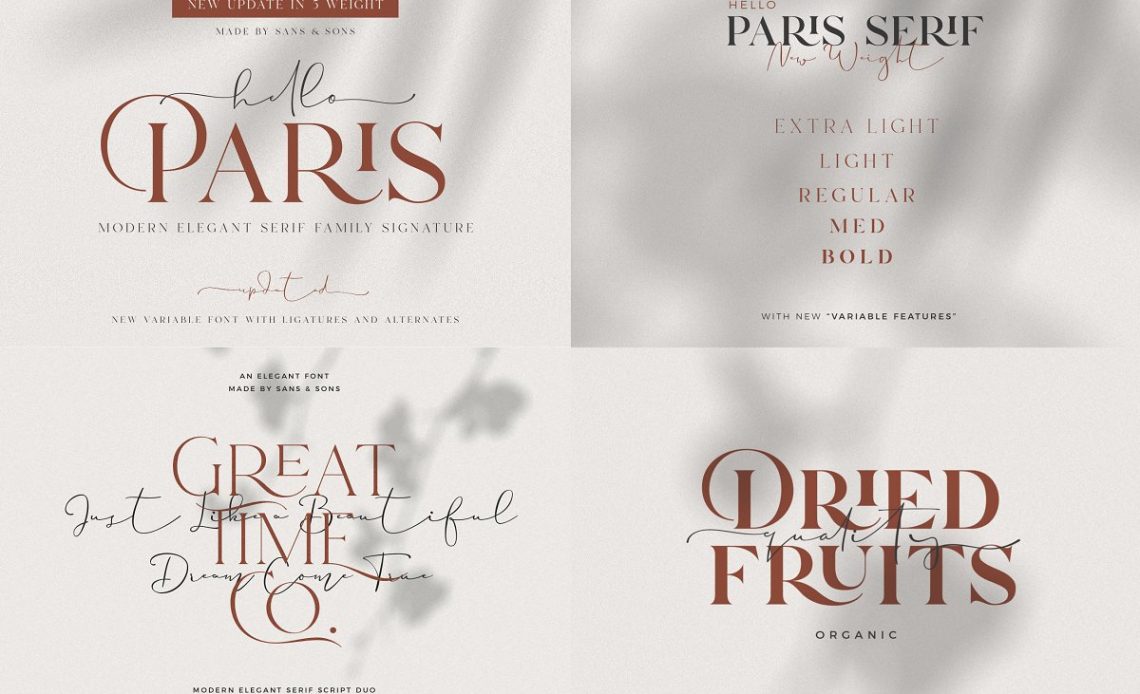
Introducing the Modern Elegant Font Bundle - SALE! Elevate your design game with this bundle of 23 beautifully crafted typefaces, including 10 high-quality font families. Created by Angga Suwista, this bundle includes the best-selling fonts from Sans Serif, Serif, and Script Font families, all with modern, elegant, and stylish looks.
With easy-to-use instructions included, you can start using these fonts right away. Impress your clients with the gorgeous Hello Paris Serif Family, the modern and ligatured Branch, the sleek and stylish Mango, and the luxurious Bulgari.
Create stunning logos with the Salty Feathers Modern Script or the Gourmet Le French Organic Paired Duo. The Peach Modern Chic Serif and the Hello Paris Sans Family will add a touch of elegance to any design, while the Carphe Modern Luxury Font and Olivia James Chic Font are perfect for high-end branding.